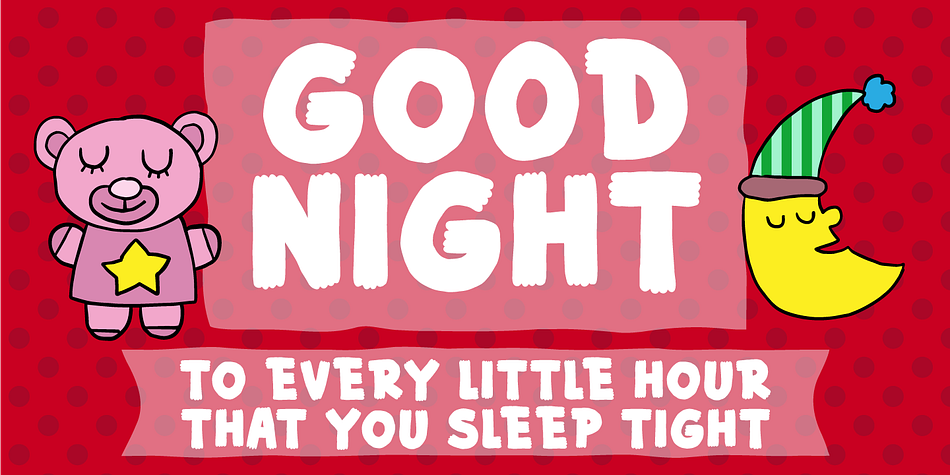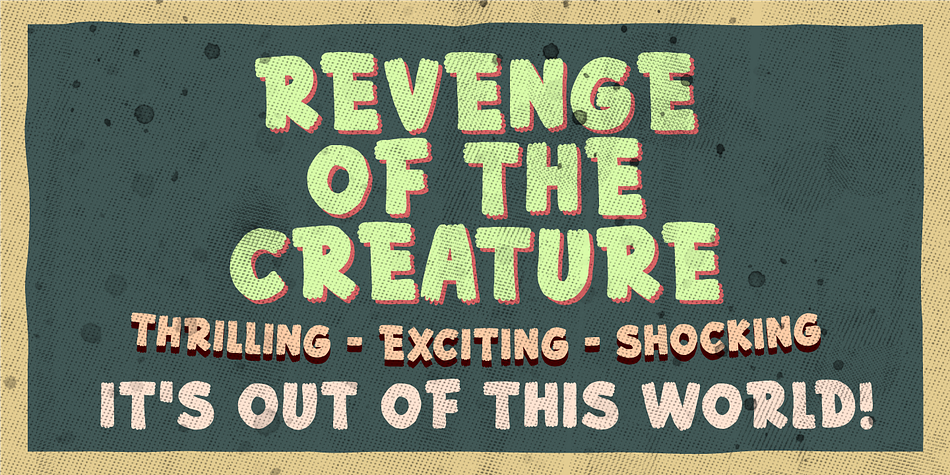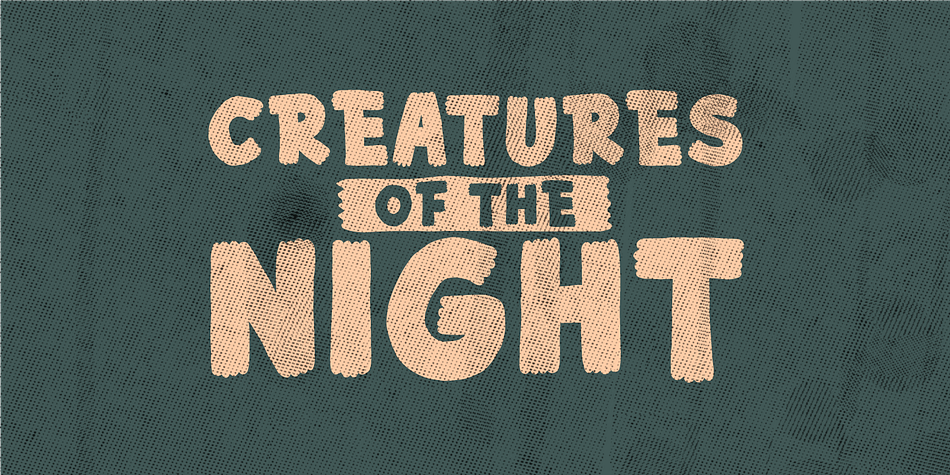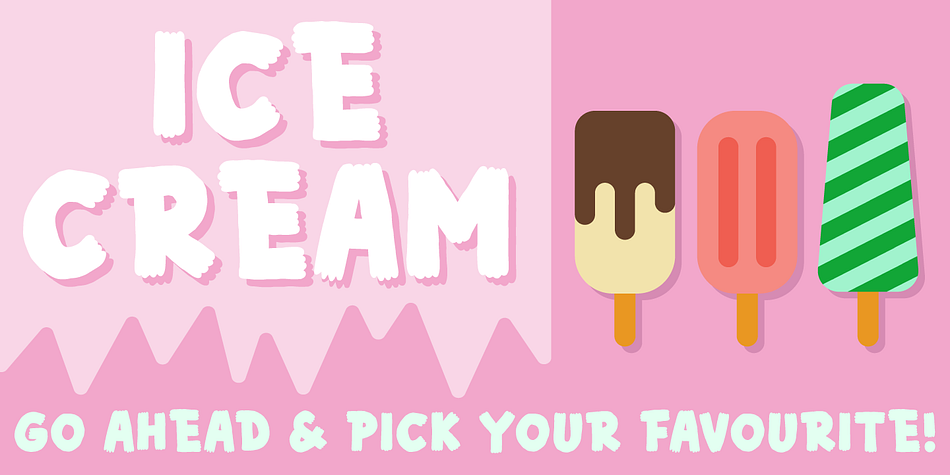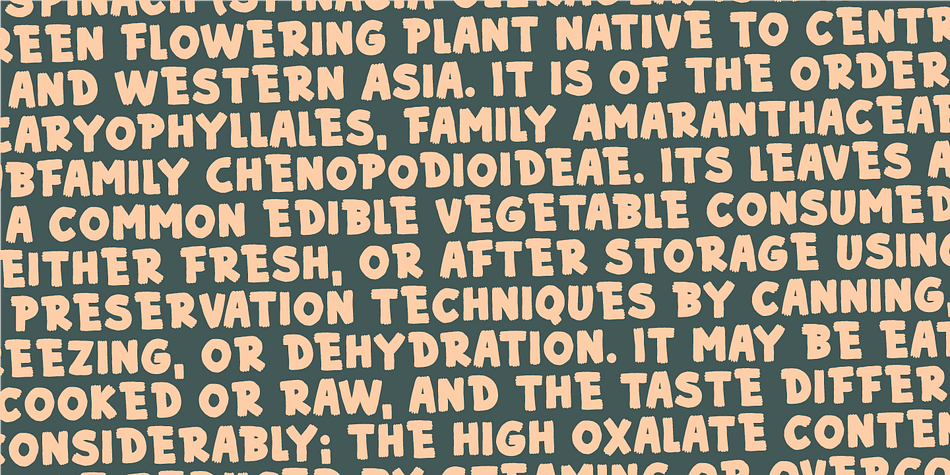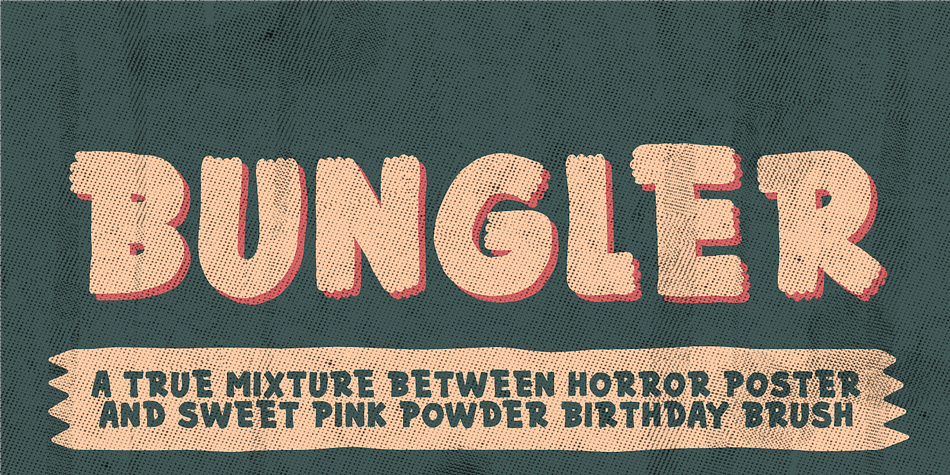
Designed by Jakob Fischer, Bungler is a brush display and hand display font family. This typeface has two styles and was published by Bogstav.
This font is a strange mixture of sweet strawberry cake and horrifying terror! :) Meaning that the font can be used for something pretty scary (such as a horror poster) or something quite innocent (like products for children) It resembles fat brushstrokes, but clearly it was drawn with a pen.